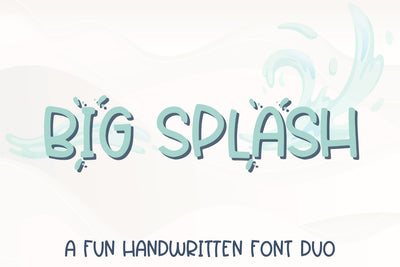
Big Splash, Pool Party Handwritten Font Duo
Make waves with the Big Splash handwritten font for Cricut, perfect for pool party invitations, baby decor, t-shirts, stickers and much more. Both Big Splash handwriting fonts are all-caps, quirky handwriting fonts with stylistic alternates without splashes included. Whether you're creating cards, scrapbooking, or working on SVG files, these fonts work perfectly with Cricut, Goodnotes, Procreate, & more. Soak up the sun and unlock endless design possibilities with our Big Splash font duo today!